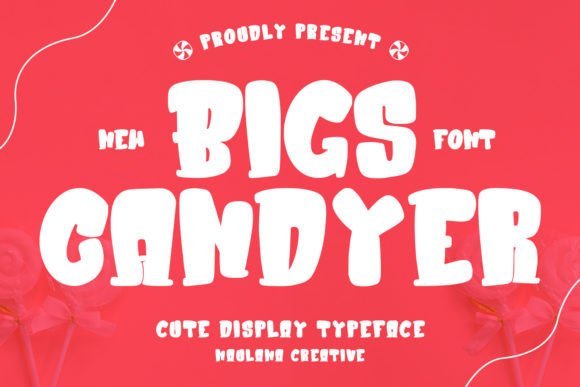
The Sweetest Addition to Your Design Arsenal
Have you ever found yourself stuck in a creative rut, searching for that perfect font to elevate your project? It’s a feeling we’ve all been there – the blank page staring back at you, waiting for inspiration to strike. For designers, finding the right font can be the difference between a good design and a great one.
Enter Bigs Candyer Font, a masterfully designed display font that’s sure to become a favorite among creatives. This unique font is the perfect addition to any designer’s toolkit, offering a level of sophistication and flair that’s hard to find elsewhere. With its potential to bring each of your creative ideas to new heights, Bigs Candyer Font is an invaluable asset for designers looking to take their work to the next level.
Bigs Candyer Font Key Features
- Font Family: Bigs Candyer Font is a unique and playful sans-serif font.
- Unique Characteristics: Features a distinctive rounded design with a mix of smooth and rough edges, giving it a friendly and approachable feel.
Bigs Candyer Font Review
I recently had the chance to work with the Bigs Candyer Font, and I must say it’s a unique addition to any design project. ✨ One of the things I appreciate about this font is its playful and whimsical feel, making it perfect for projects that require a touch of personality. The font’s bold and rounded shapes create a sense of friendliness and approachability, which is ideal for branding and advertising materials.
Another advantage of the Bigs Candyer Font is its versatility. ✨ It can be used in a variety of contexts, from children’s books and educational materials to packaging and promotional materials. The font’s large x-height also makes it easy to read, even at smaller font sizes.
However, there are some limitations to consider. ⚠️ One of the main drawbacks of the Bigs Candyer Font is its lack of sophistication and elegance. It’s not the best choice for projects that require a more refined or high-end feel. Additionally, the font’s boldness can sometimes make it difficult to read in certain situations.
Overall, I would recommend the Bigs Candyer Font for projects that require a playful and approachable feel. While it may not be the best choice for every project, it’s a great addition to any designer’s toolkit. Here are some key points to consider:
- Unique and playful feel
- Perfect for branding and advertising materials
- Can be used in a variety of contexts
- Lack of sophistication and elegance
- Can be difficult to read in certain situations
Use Bigs Candyer Font for:
1. Creating eye-catching titles and headings.
2. Designing retro-themed graphics and posters.
3. Adding a playful touch to your branding and marketing materials.
Remember to pair Bigs Candyer Font with other fonts that complement its unique style.